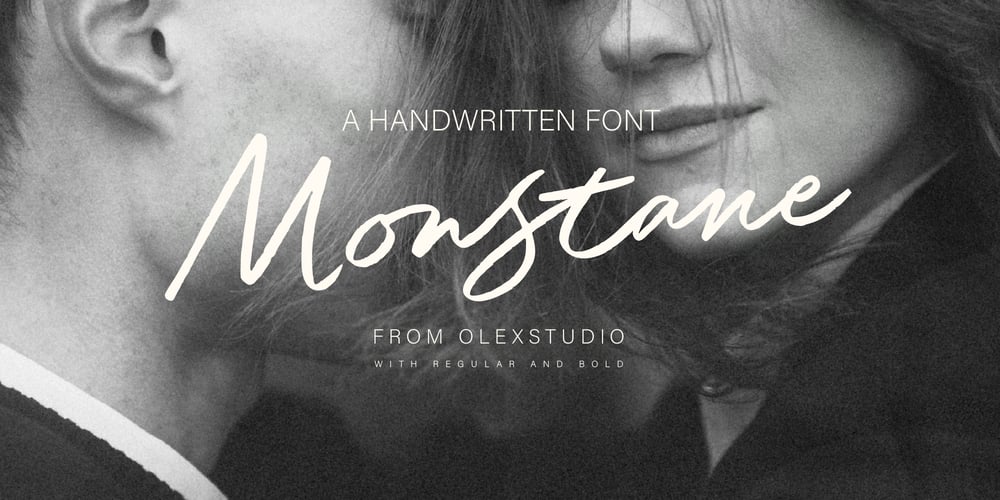
Monstane Olstd
Monstane Olstd Font Family was designed by Firman Syah and published by Olexstudio. Monstane Olstd contains 2 styles and family package options. Monstane – Handwriting Script Font will look gorgeous on all your designs, invitation, poster design, book design, branding materials, logo’s, and all project design other.WHAT’S INCLUDEDMonstane – Handwriting Script Font contains standard characters, Lowercase, Uppercase, numbers, punctuation, ligatures and international glyphs.